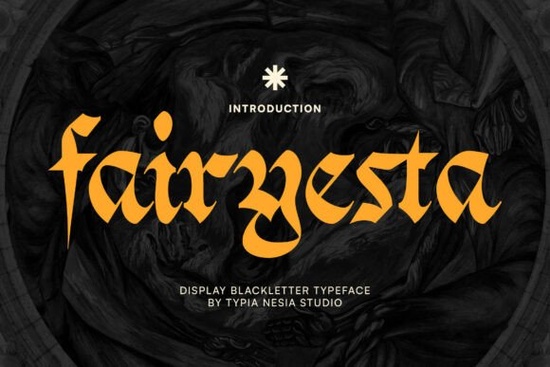
If you're working on a fantasy logo, a horror-themed poster, or a metal band design that needs serious medieval presence, Fairyesta Font might be exactly what your project’s missing. This blackletter display font blends authentic Gothic letterforms with dramatic flair ideal for anyone who wants to add old-world gravitas without sacrificing visual impact.
Designed with sharp serifs and dense, ornate strokes, Fairyesta draws from classic Old English typography but adapts it for modern creative uses. Whether you’re crafting merch for a dark fantasy game, designing album art, or branding a gothic-inspired small business, this font delivers atmosphere without looking dated.
What makes Fairyesta stand out among blackletter fonts?
Not all blackletter fonts are created equal. While many lean too heavily into historical accuracy (making them hard to read) or oversimplify the style (losing its essence), Fairyesta strikes a thoughtful balance. It maintains the structural integrity of medieval scripts while ensuring legibility at display sizes.
Compared to other options like Malvoid which leans more industrial or Odgar, which offers a slightly softer take Fairyesta leans fully into its dramatic roots. That makes it especially useful when your design needs to convey mystery, power, or timelessness right away.
Who should use Fairyesta Font?
This font works best in projects where mood matters as much as message. Think:
- Fantasy authors creating book covers or chapter headers
- Game developers designing title screens or faction logos
- Print-on-demand sellers making t-shirts, mugs, or posters with gothic themes
- Small businesses in niche markets like occult shops, tattoo studios, or themed cafés
- Hobbyist designers experimenting with cinematic or historical aesthetics
It’s not meant for body text or minimalist branding but if you need a headline that commands attention and whispers “ancient prophecy” or “forgotten kingdom,” Fairyesta delivers.
How to pair Fairyesta with other design elements
Because of its strong personality, pairing Fairyesta with other fonts requires care. Stick to clean, neutral sans-serifs like Helvetica, Futura, or even a simple geometric typeface for contrast. Avoid using another decorative or script font alongside it clashing styles can dilute its impact.
For color, deep tones like burgundy, forest green, charcoal, or gold foil enhance its medieval vibe. On textures, it looks especially striking over aged parchment, stone, or grunge backgrounds.
Practical tips for using Fairyesta effectively
Here’s how to get the most out of this font without overwhelming your audience:
- Use it large. Fairyesta shines as a display font keep it above 24pt for readability.
- Avoid tight spacing. Its intricate details need room to breathe; increase letter-spacing slightly if letters feel crowded.
- Limit uppercase use. While it includes both upper and lowercase glyphs, full caps can reduce legibility mix cases for better flow.
- Test on your final medium. If you’re printing on fabric or engraving on wood, check how fine details hold up at scale.
Remember: this font isn’t just about looking “cool” it’s about reinforcing a narrative. Use it when your project already leans into fantasy, history, or darkness, and let the typography deepen that story.
If your current designs feel too generic or modern for the mood you’re chasing, swapping in Fairyesta could be the subtle shift that brings everything together. And since it’s available through Creative Fabrica a platform many designers already use for fonts, graphics, and craft assets it integrates smoothly into existing workflows.